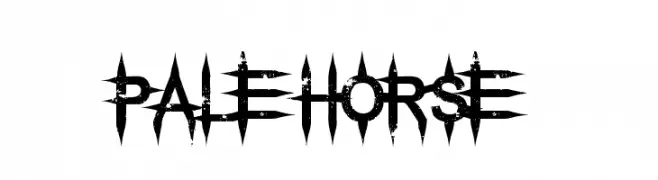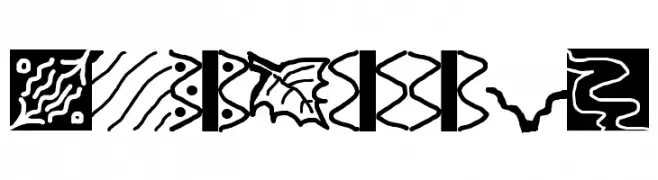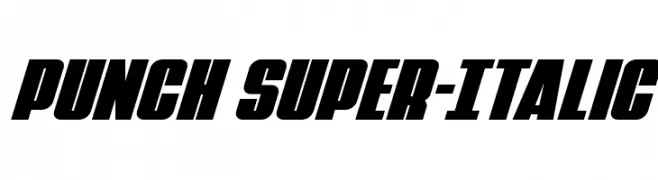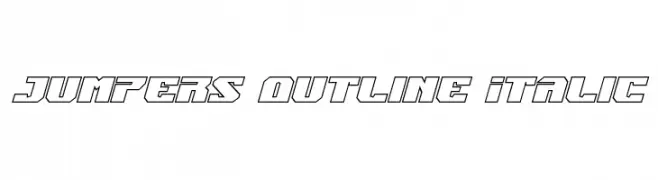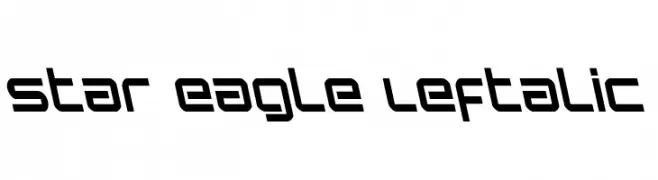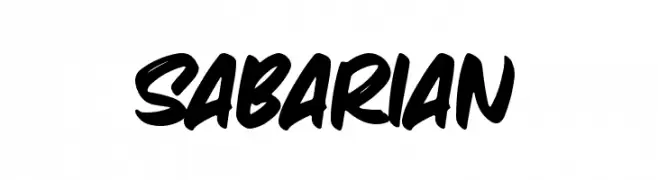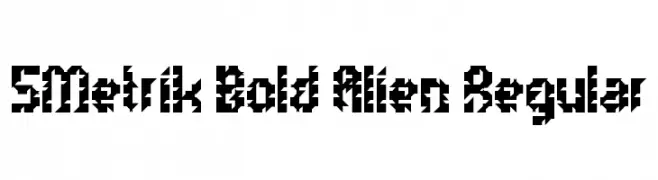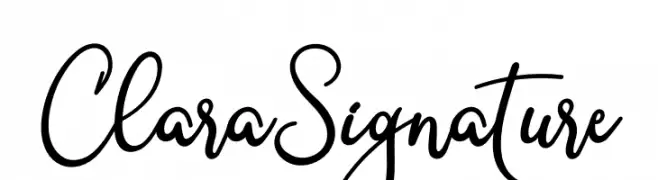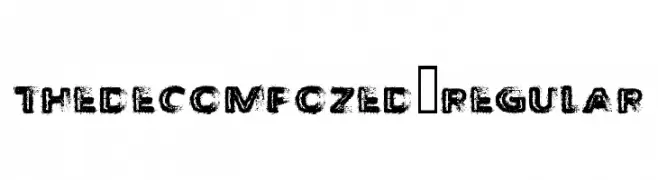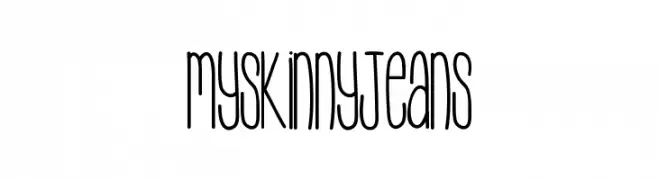
A bold, spiked, and distressed decorative font ideal for edgy designs.
A modern, geometric font with thin strokes and a minimalist design.
A thin, angular font inspired by ancient Phoenician and Moabite scripts.
A modern sans-serif font with semi-condensed proportions and a clean, professional look.
A flowing, cursive font with a handwritten and elegant style.
A bold, italicized font with a dynamic and energetic style.
A bold, geometric outline font with an italic slant and sharp angles.
A bold, hand-drawn font with an organic and playful style.
A bold, decorative font with playful, eclectic patterns and whimsical style.
A futuristic, angular font with a dynamic, slanted design.
A playful, handwritten font with a quirky and informal style.
A bold, Gothic-style font with sharp, angular lines and ornate detailing.
A playful, handwritten font with fluid, connected letterforms and a casual style.
A bold, handwritten font with a dynamic and energetic style.
A modern, abstract font with characters formed by vertical lines.
A bold, angular font with a futuristic, alien-like design.
A bold, condensed, and italicized font with sharp angles and dynamic style.
A bold, expressive handwritten font with flowing, ink-like strokes.
A playful handwritten font with smooth, rounded letterforms and a casual vibe.
A sophisticated and elegant handwritten script with fluid, graceful letterforms.
A distressed, grungy font with a bold, weathered appearance.
A decorative font with bold, uppercase letters inside candle shapes.
A bold, playful font with a double outline and rounded characters.
A modern, rounded sans-serif font with a bold, oblique style.
A bold, decorative font with a unique checkered pattern.
A bold, expanded, and italicized font with a modern, dynamic style.
A stylish and elegant script font with flowing, interconnected characters.
A light, italic, handwritten-style font with elegant curves.
A geometric, abstract font with characters in square outlines, ideal for creative projects.